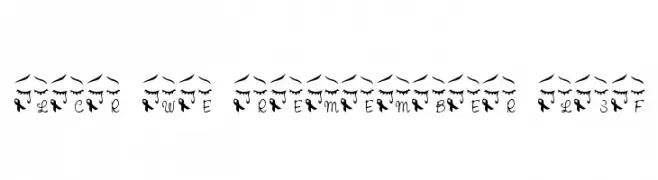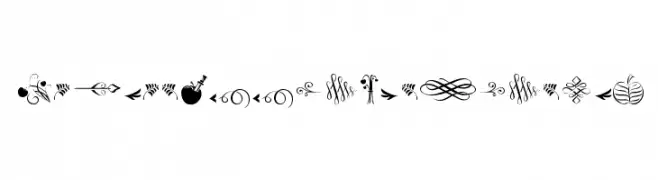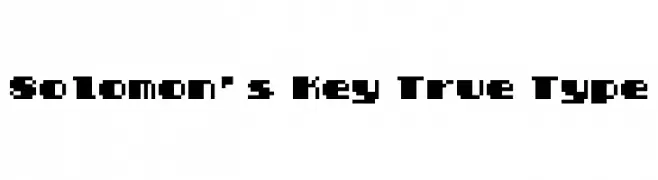
A detailed fantasy-themed dingbat font with medieval and mythical symbols.
St. Patrick's Day-themed dingbat font with festive illustrations.
A whimsical, decorative font with fairy-tale inspired ornaments and intricate details.
A playful, cow-patterned font with bold, blocky letters and rounded edges.
A bold, geometric font with a futuristic, digital aesthetic.
A bold, pixelated font with a retro digital style.
An ornate and decorative font with intricate detailing, ideal for display use.
A whimsical, cow-themed decorative font with bold, outlined characters.
A decorative font featuring awareness ribbons integrated into each character.